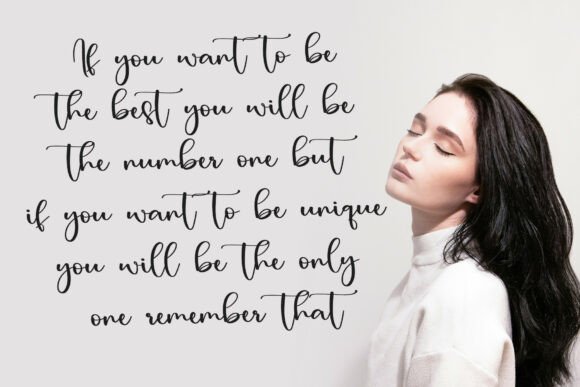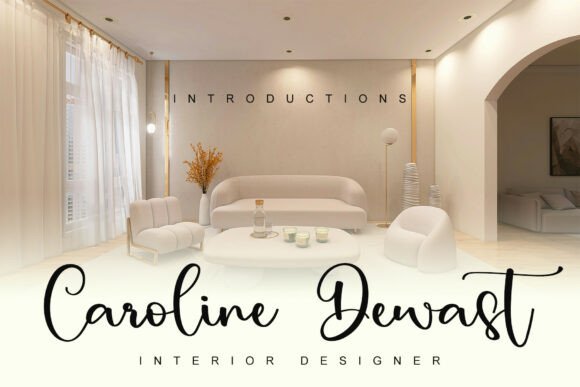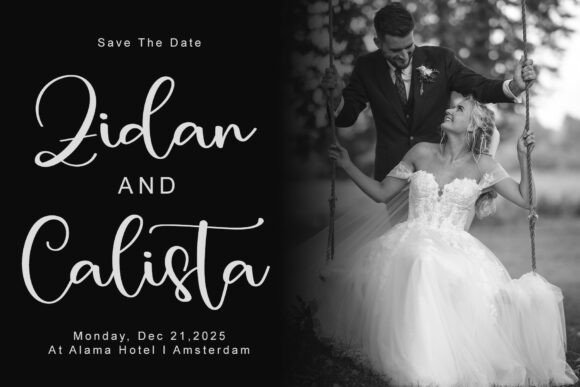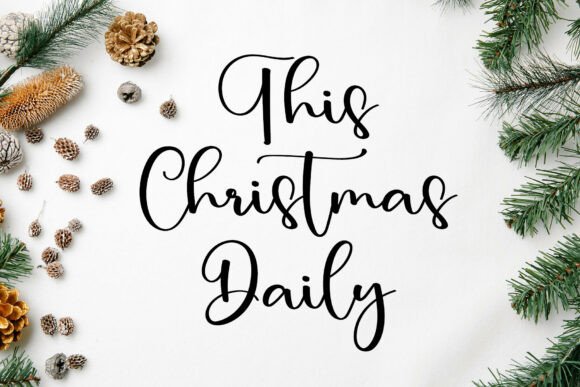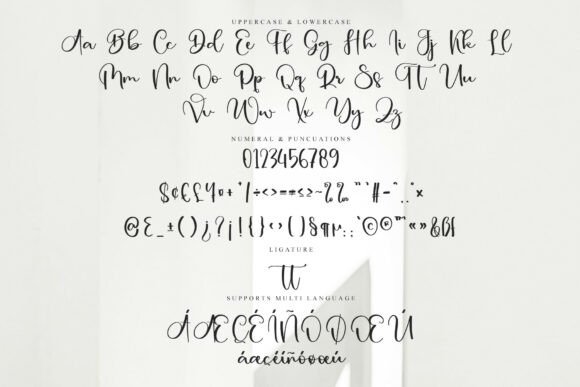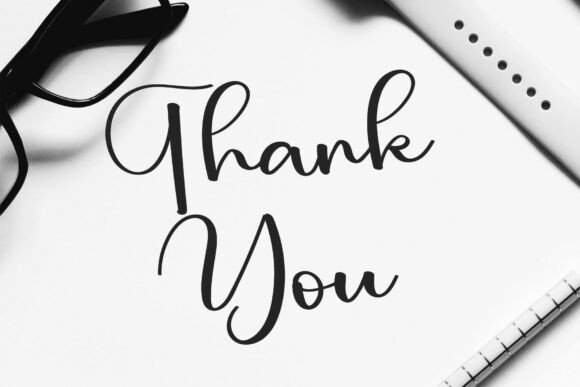
Introducing Definite Font: The Sweet and Cursive Handwritten Font for Your Design Needs
Are you looking for a font that can add a touch of elegance and romance to your designs? Look no further than Definite Font, a sweet and cursive handwritten font that is perfect for a variety of design projects. With its gentle and flowing curves, Definite Font is sure to make your designs stand out and leave a lasting impression.
What Makes Definite Font Special?
Definite Font is a unique and versatile font that can be used for a wide range of design ideas. Its cursive and handwritten style gives it a personal and intimate feel, making it perfect for designs that require a touch of warmth and personality. Whether you’re working on a branding project, creating a logo, or designing wedding materials, Definite Font is sure to add a joyful and romantic touch to your work.
Definite Font is a flexible font that can be used for a variety of design projects, including:
- Branding: Use Definite Font to create a unique and memorable brand identity that stands out from the crowd.
- Logo Design: Create a stunning logo that showcases your brand’s personality and style with Definite Font.
- Wedding Design: Add a touch of romance and elegance to your wedding designs, including invitations, programs, and decorations.
- Greeting Cards: Create beautiful and heartfelt greeting cards for special occasions, such as birthdays, anniversaries, and holidays.
- Fashion: Use Definite Font to create stunning fashion designs, including lookbooks, catalogs, and advertisements.
- Marketing Promotion: Add a touch of elegance and sophistication to your marketing materials, including brochures, flyers, and posters.
Why Choose Definite Font?
There are many reasons why you should choose Definite Font for your design needs. Here are just a few:
- Unique and Versatile: Definite Font is a one-of-a-kind font that can be used for a wide range of design projects.
- Elegant and Romantic: Definite Font adds a touch of elegance and romance to any design, making it perfect for projects that require a personal and intimate feel.
- Easy to Read: Definite Font is clear and easy to read, making it perfect for designs that require a high level of legibility.
- Flexible: Definite Font can be used for both digital and print designs, making it a versatile font that can be used across different mediums.
How to Use Definite Font
Using Definite Font is easy and straightforward. Here are a few tips to get you started:
- Pair it with Other Fonts: Definite Font can be paired with other fonts to create a unique and interesting contrast.
- Experiment with Different Sizes: Definite Font can be used at different sizes to create a hierarchy of text and add visual interest to your designs.
- Use it for Headings and Titles: Definite Font is perfect for headings and titles, where its elegant and cursive style can really shine.
In conclusion, Definite Font is a sweet and cursive handwritten font that is perfect for designers and crafters who want to add a touch of elegance and romance to their designs. With its unique and versatile style, Definite Font can be used for a wide range of design projects, from branding and logo design to wedding materials and marketing promotions. So why wait? Download Definite Font today and start creating stunning designs that will leave a lasting impression!